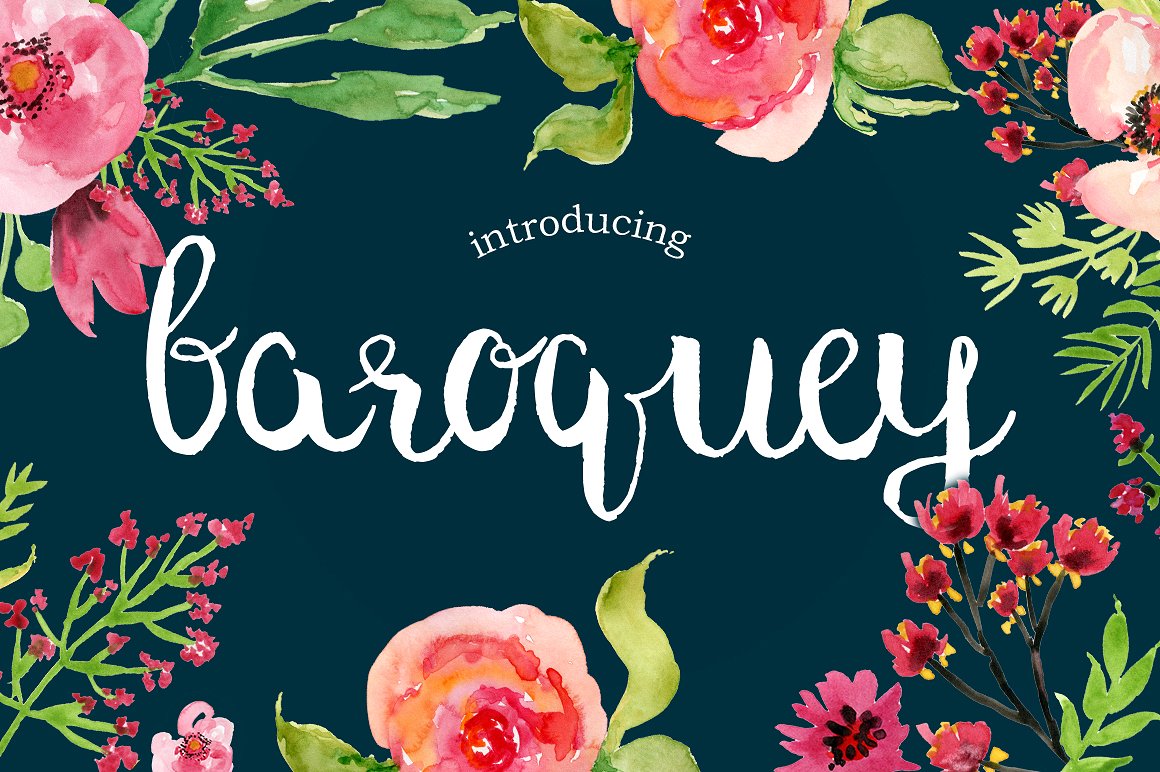
Baroquey Script
Baroquey Script Font
Baroquey Script beautiful thin handwritten font. It looks like it has been created with a tiny brush or pencil and is great for adding elegant decorations to your designs. Looks great on wedding invites, birthday cards, nursery decorations and more.